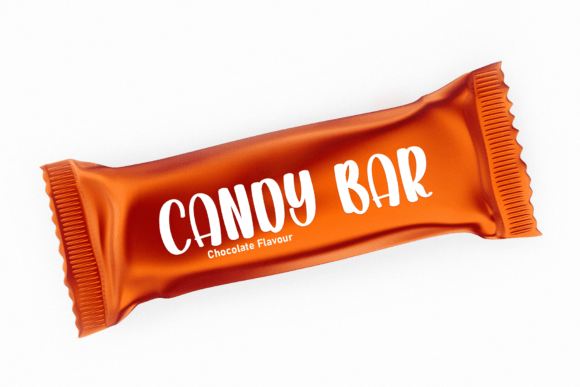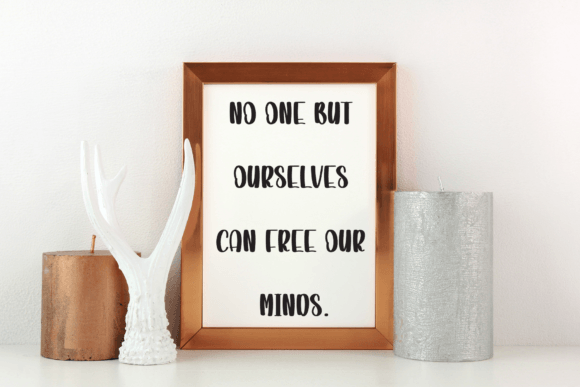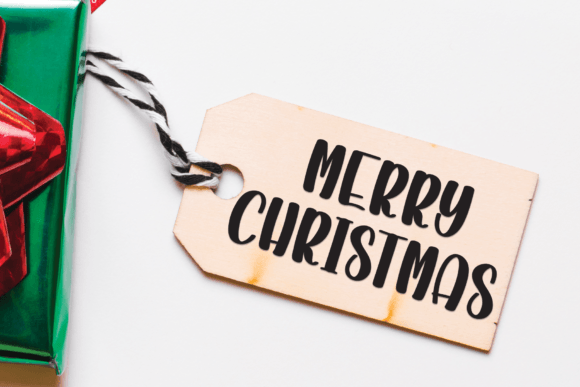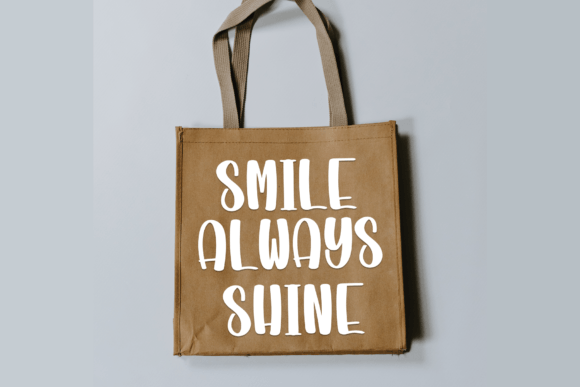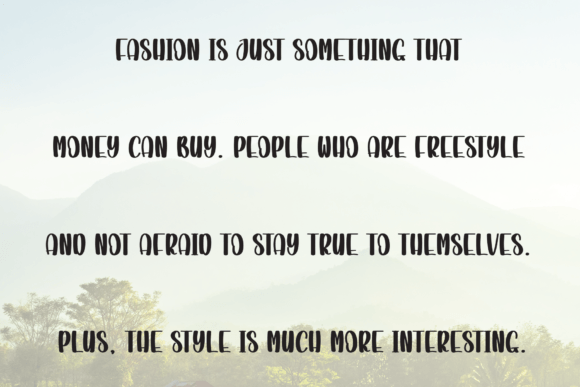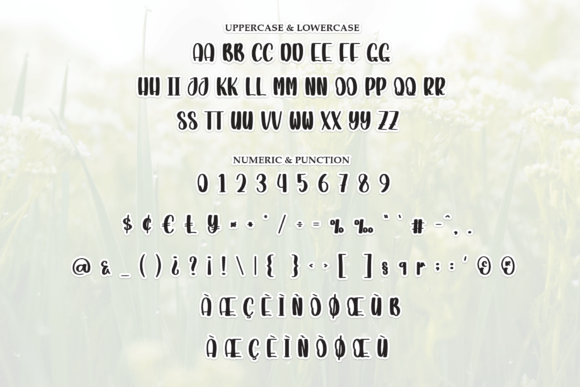
The Perfect Font for a Touch of Whimsy
Do you remember the moment when you knew exactly how you wanted your wedding invitations to look? For many of us, it’s that spark of creativity that sets the tone for the rest of our design journey. Whether it’s a playful, handwritten font or a classic serif, the right typography can elevate your design and make it truly special. For those looking to add a touch of whimsy to their work, there’s one font that stands out from the rest: Bounty Font.
Bounty is a sweet and friendly handwritten display font that’s perfect for adding a fun touch to your designs. From wedding invitations to cards and beyond, this font is sure to bring a smile to your face. And for designers, Bounty Font is a valuable addition to any toolkit, offering a unique and versatile way to express your creativity.
Bounty Font Key Features
- Unique Characteristics: Bounty Font features a unique blend of modern and vintage elements, making it suitable for a wide range of design projects.
- Font Style: The font has 4 font styles: Regular, Bold, Italic, and Bold Italic, providing users with flexibility in their design choices.
Bounty Font Review
Bounty Font is a solid addition to any designer’s toolkit. ✨ I appreciate its versatility and modern feel. The font is designed to be bold and eye-catching, making it perfect for headlines and titles.
The font’s key features include:
- Wide range of weights and styles
- Excellent for creating dynamic headings
- Works well in digital and print media
However, there are some limitations to consider. ⚠️ The font’s thin weights can appear too light and washed out in some cases. Additionally, the font’s italic styles can be a bit too playful for more formal or traditional designs.
Overall, I’m impressed with Bounty Font’s capabilities. While it may not be the perfect fit for every project, it’s definitely worth considering for designers looking for a bold and modern font. With some careful selection and customization, Bounty Font can be a powerful tool in any designer’s arsenal.
Tips for Getting the Most Out of Bounty Font
1. Use the Bounty Font in bold or italic styles to add emphasis to your text.
2. Experiment with different font sizes and line spacing to create a visually appealing design.
3. Pair the Bounty Font with other fonts to create a unique and stylish typography combination.
The Bounty Font is ideal for:
- Restaurant and food-related designs
- Travel and adventure-themed projects
- Modern and minimalist design projects
Alternatives to Bounty Font
Playfair Display is a luxurious, elegant serif font suitable for formal invitations, branding, and high-end publications. It has a classical feel and features intricate details, which make it stand out. Playfair Display is ideal for projects requiring sophistication and refinement.
Compared to Bounty Font, Playfair Display is more ornate and less playful. While Bounty Font is designed for a more casual, approachable feel, Playfair Display is better suited for projects demanding a sense of luxury and sophistication.
Lato is a clean, modern sans-serif font ideal for digital interfaces, editorials, and corporate branding. It features a clear, legible design and is highly versatile, making it suitable for a wide range of applications.
Lato is more straightforward and less playful than Bounty Font. While Bounty Font has a unique, hand-drawn feel, Lato is a more conventional font designed for clarity and readability.